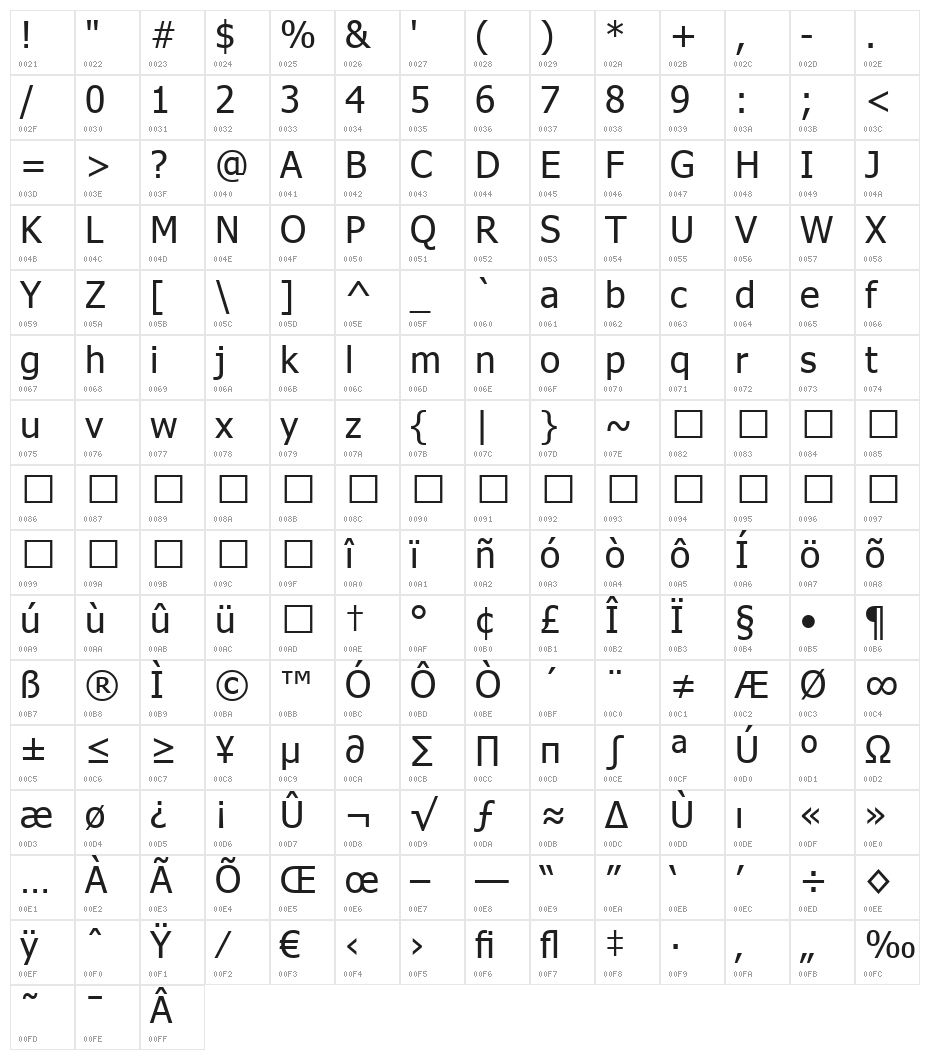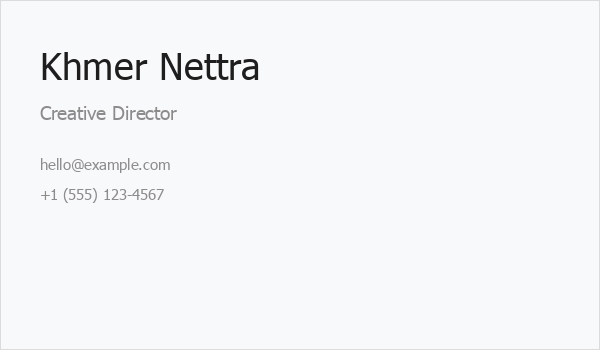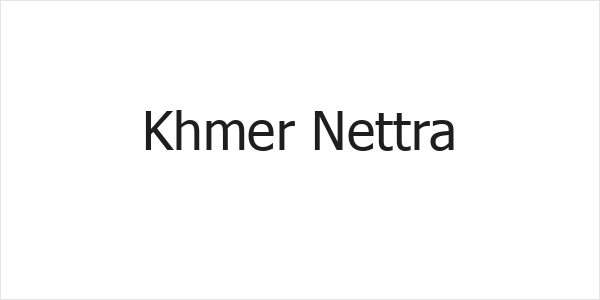
Khmer Nettra Font
Khmer Nettra Description
This font presents a clean and modern aesthetic with its sans-serif design. The characters are uniformly structured, providing a harmonious and balanced appearance. The uppercase and lowercase letters maintain a consistent height ratio, contributing to its readability. The numbers are clear and distinct, making them easily distinguishable. Special characters are well-defined, ensuring versatility in various applications. The overall design is sleek and professional, suitable for both digital and print media.